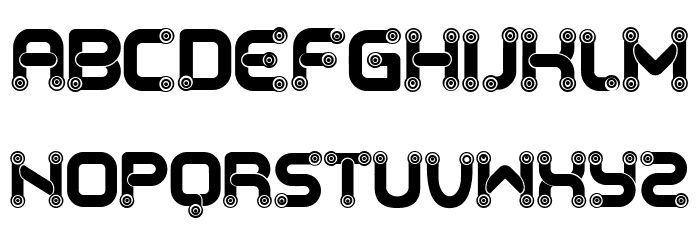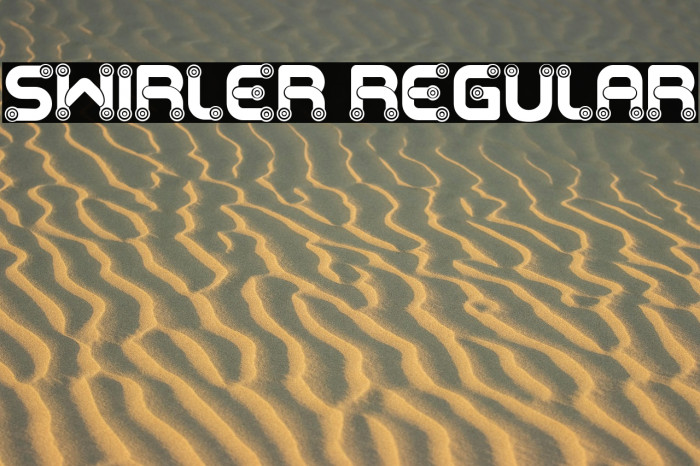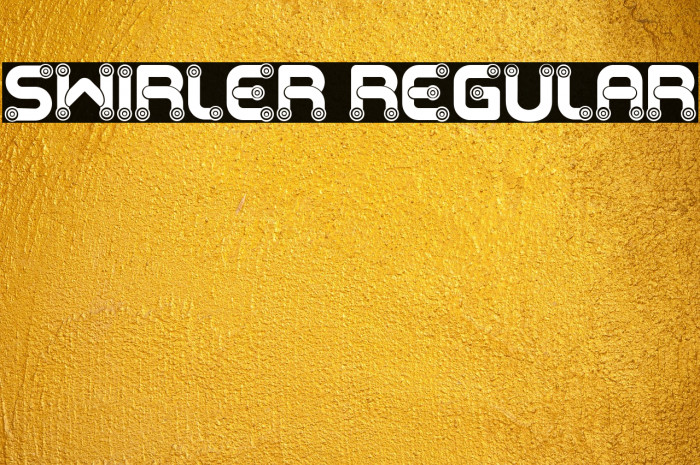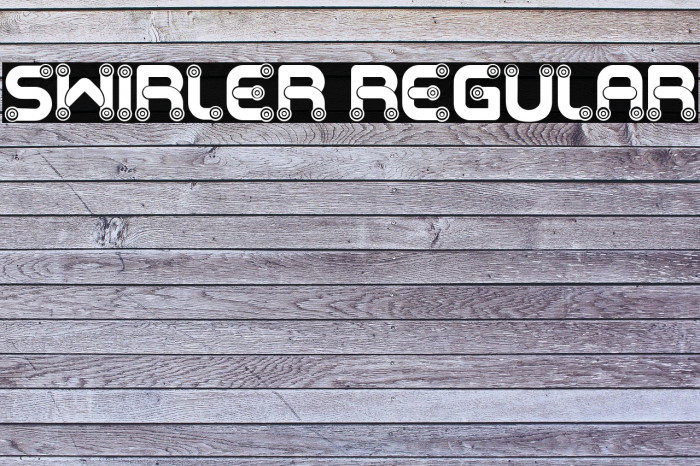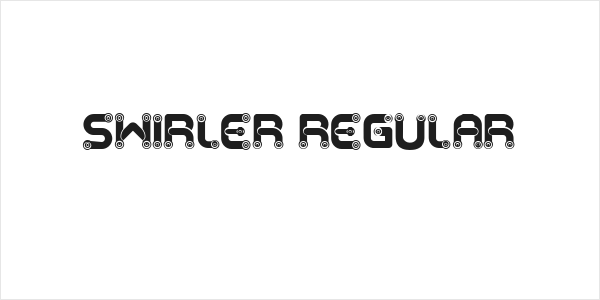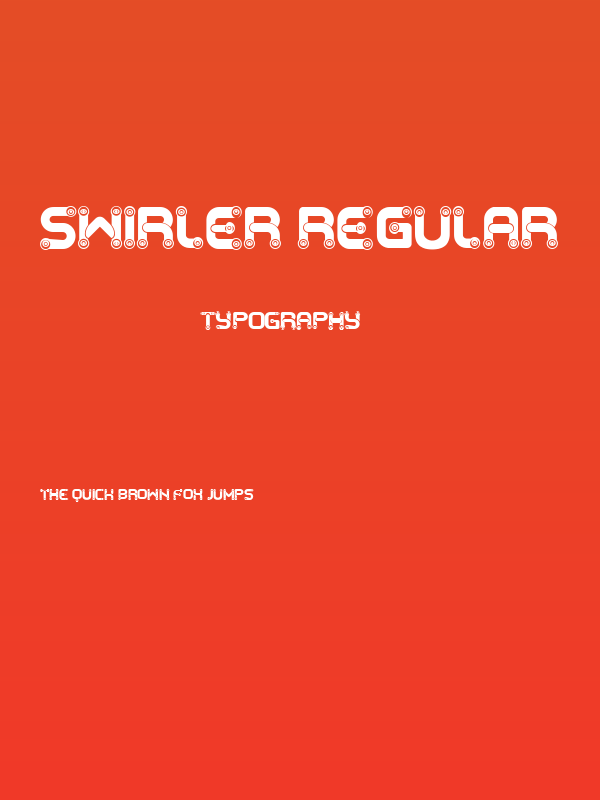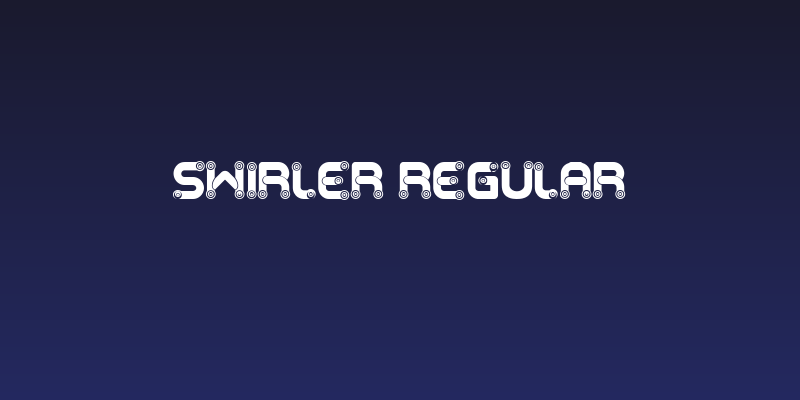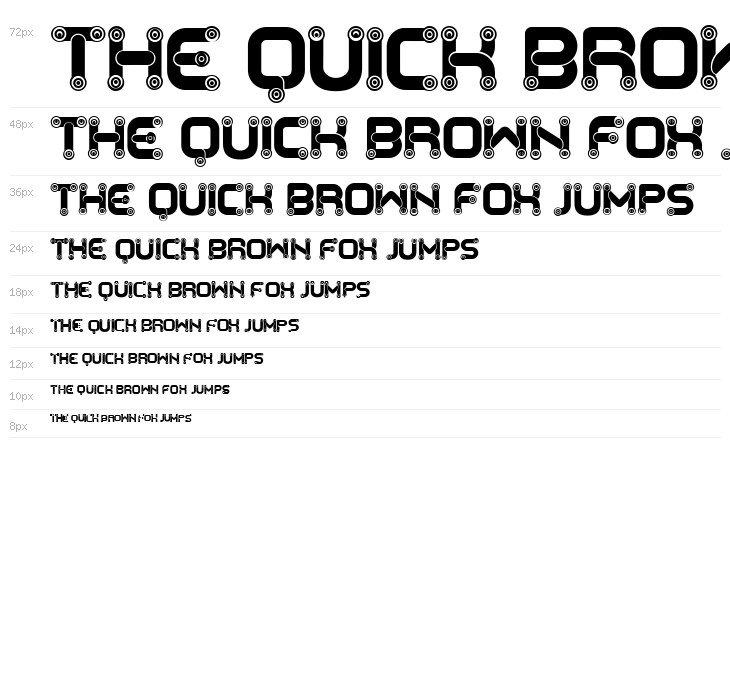
Swirler Regular Font
Swirler Regular Description
This font features a unique and playful design with swirling, circular embellishments at the ends of each character. The bold, geometric shapes are accentuated by these decorative swirls, giving the font a whimsical and artistic flair. The characters are uniformly structured, maintaining a consistent height and width, which adds to the overall balance and harmony of the design. The font's distinct style makes it stand out, making it ideal for creative and eye-catching projects. Its decorative nature suggests a focus on display purposes rather than readability in body text.
| Proposed Projects | Ideal for creative projects such as posters, logos, and branding materials that require a playful and artistic touch. |